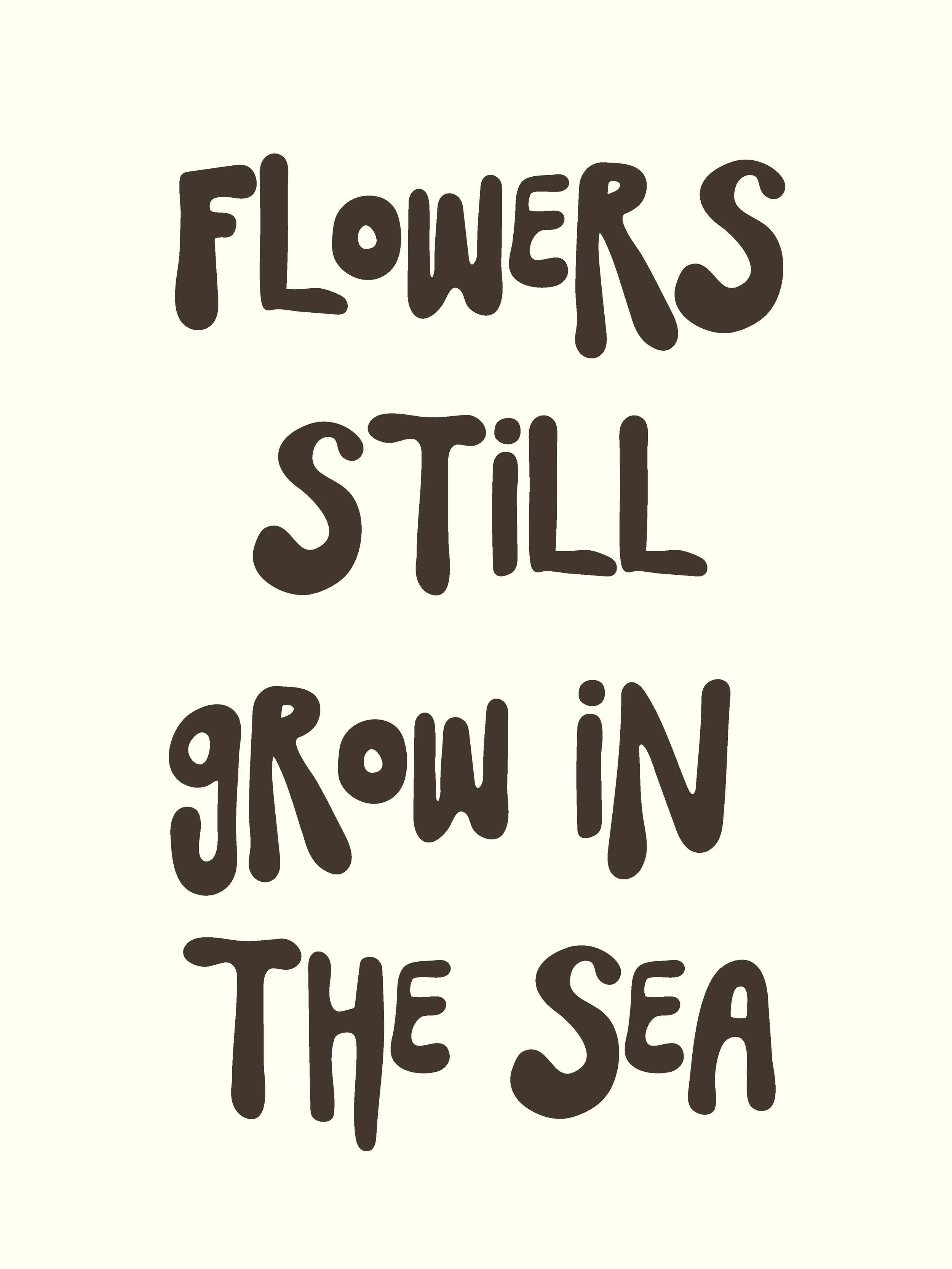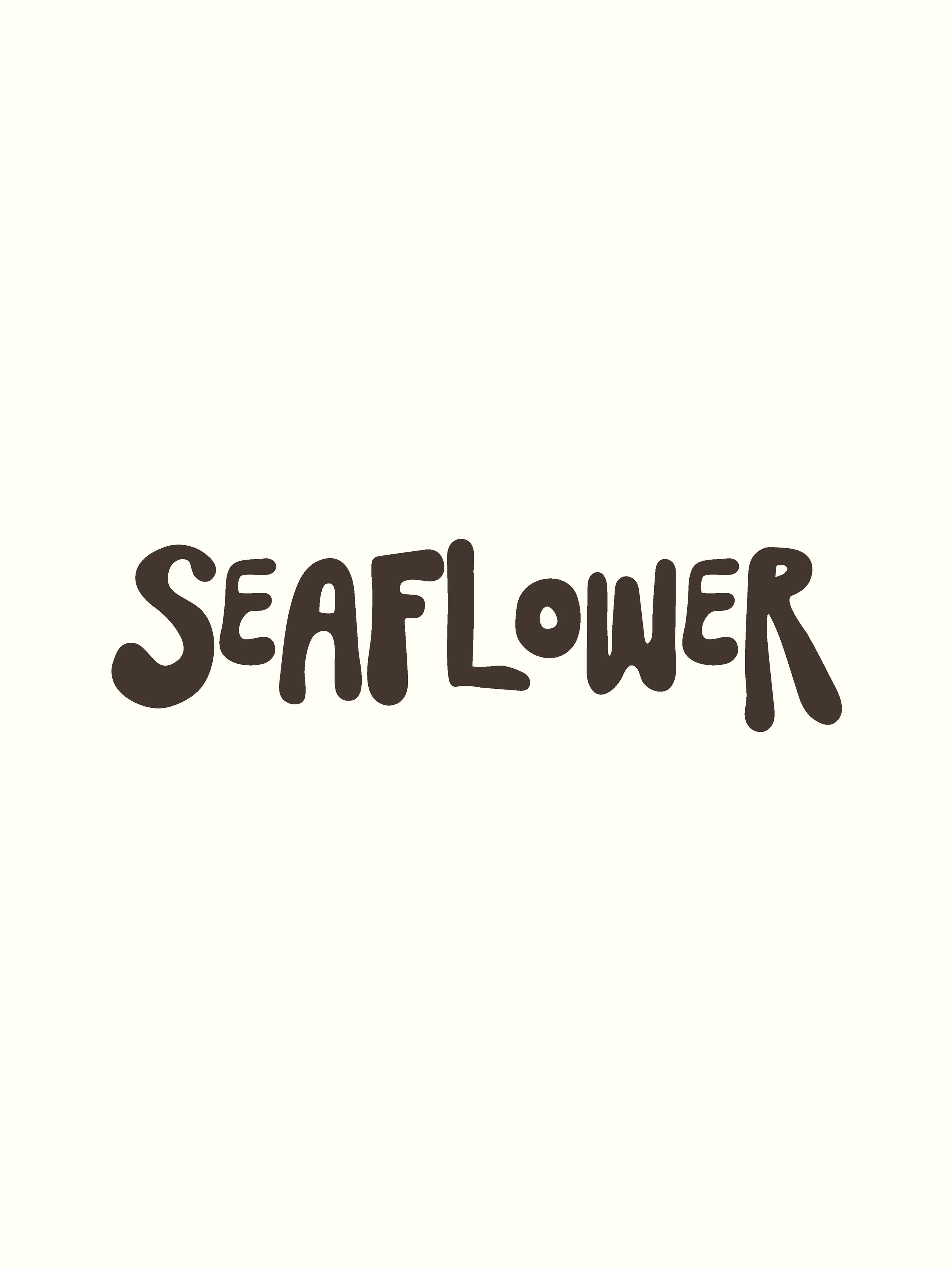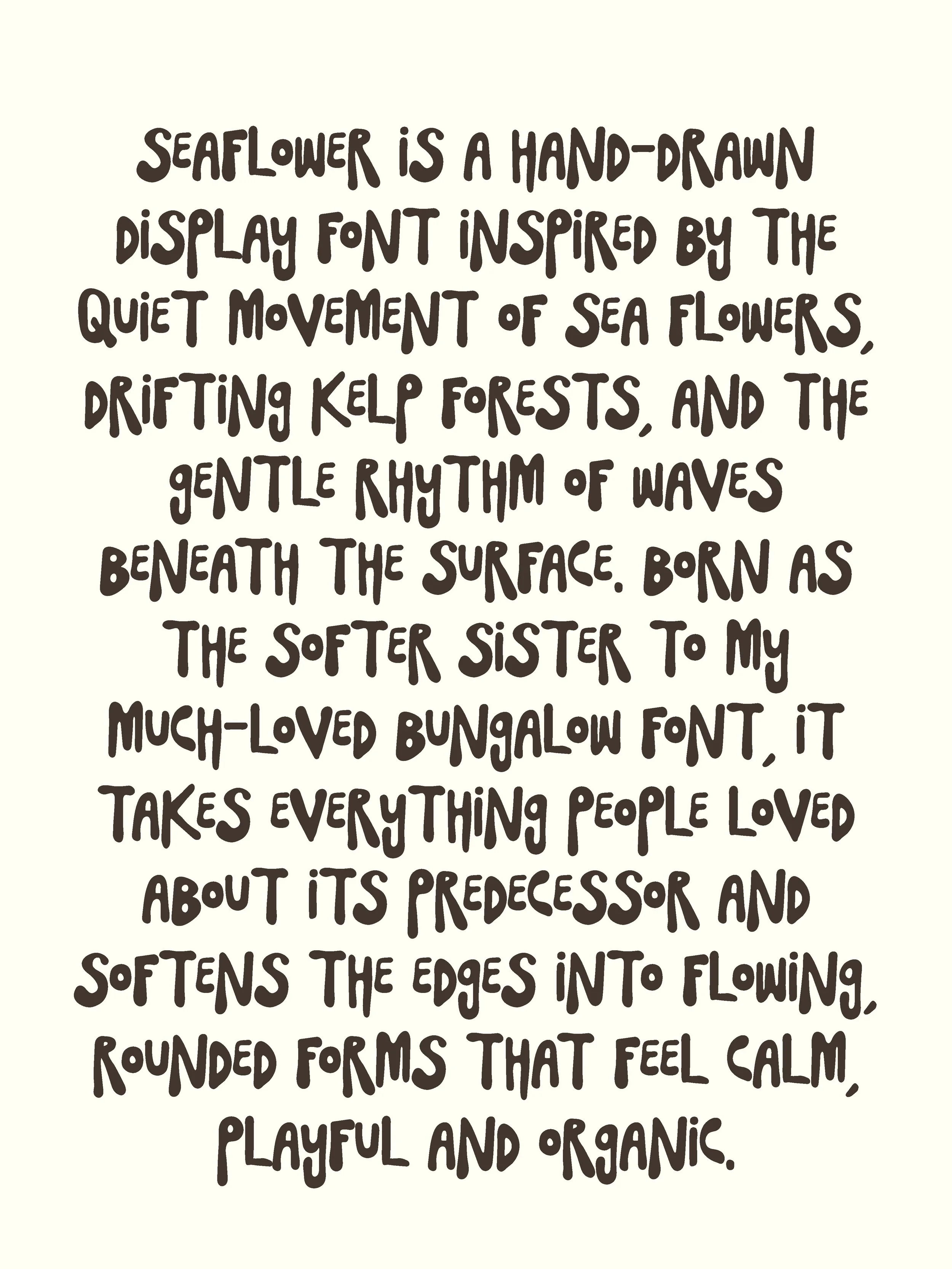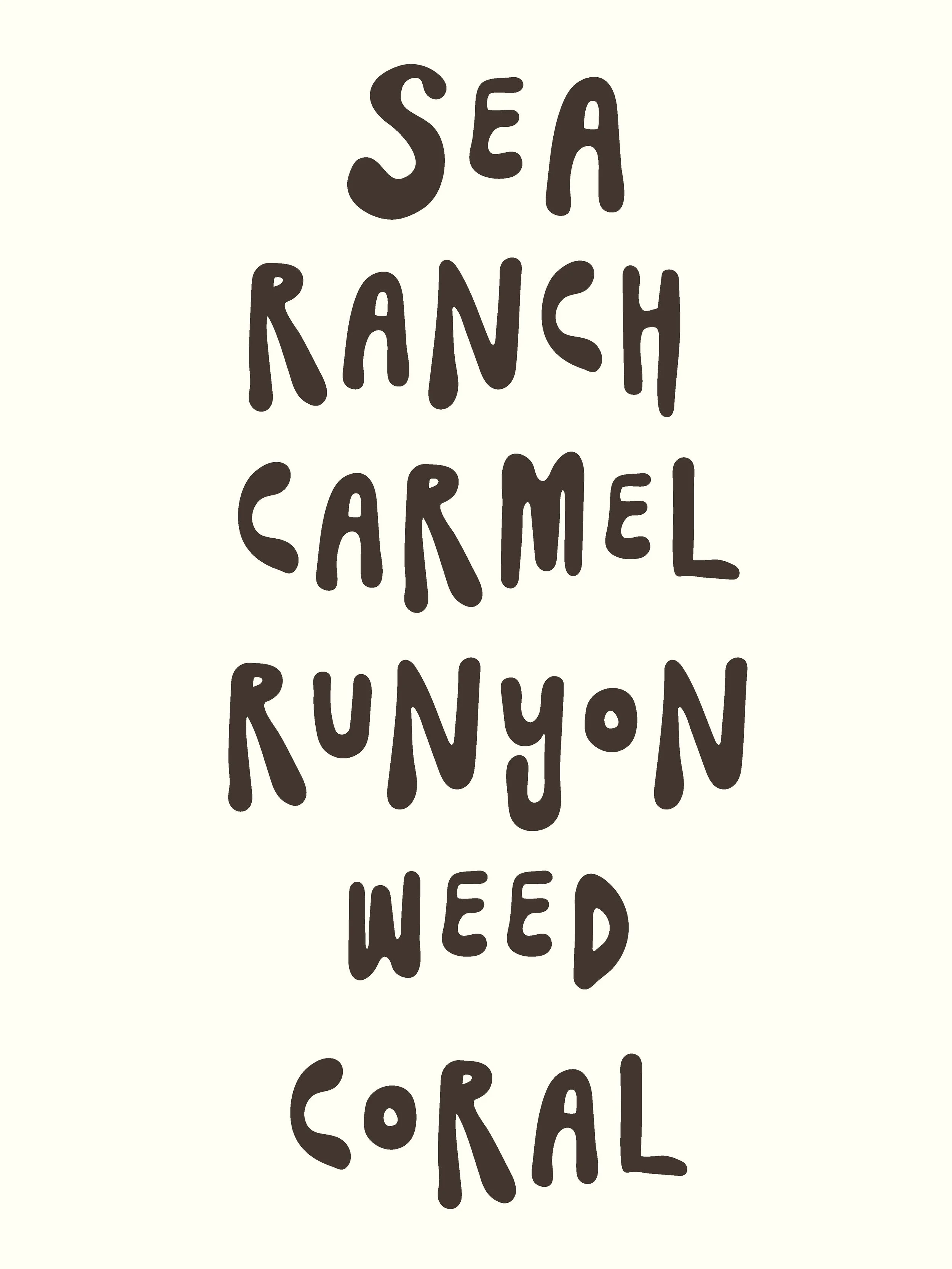
SeaFlower | Hand Drawn Surf Font
SEAFLOWER is a hand-drawn display font inspired by the quiet movement of sea flowers, drifting kelp forests, and the gentle rhythm of waves beneath the surface. Born as the softer sister to my much-loved BUNGALOW font, it takes everything people loved about its predecessor and softens the edges into flowing, rounded forms that feel calm, playful and organic.
Originally created for a craft beer label, SEAFLOWER grew from a custom piece of lettering into a complete typeface. Every character has been carefully drawn by hand with gentle curves and subtle imperfections, creating letters that feel as though they've been shaped by water rather than carved from wood.
Where BUNGALOW is bold, sun-faded and weathered by the coast, SEAFLOWER drifts a little deeper beneath the surface. Its softer forms echo swaying seaweed, underwater blooms and the slow, effortless movement of the ocean, making it perfect for projects that call for warmth, flow and an easygoing handmade spirit.
Features:
A–Z Uppercase only
Numbers 0–9
Basic punctuation only
Perfect for coastal brands, breweries, cafés, surf brands, boutique packaging, vintage-inspired logos, apparel graphics, posters and creative projects looking for a softer, more organic hand-drawn display font. SEAFLOWER brings relaxed coastal character with a flowing handmade edge.